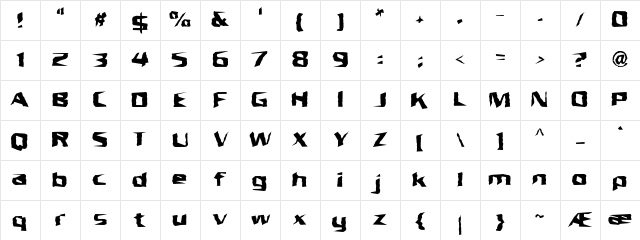
Complete Unresponsive BRK Regular glyph index. Displaying only characters natively supported by Unresponsive BRK Regular font.
Unresponsive BRK is a composed and adaptable typeface that performs quietly and consistently across a wide range of design contexts.